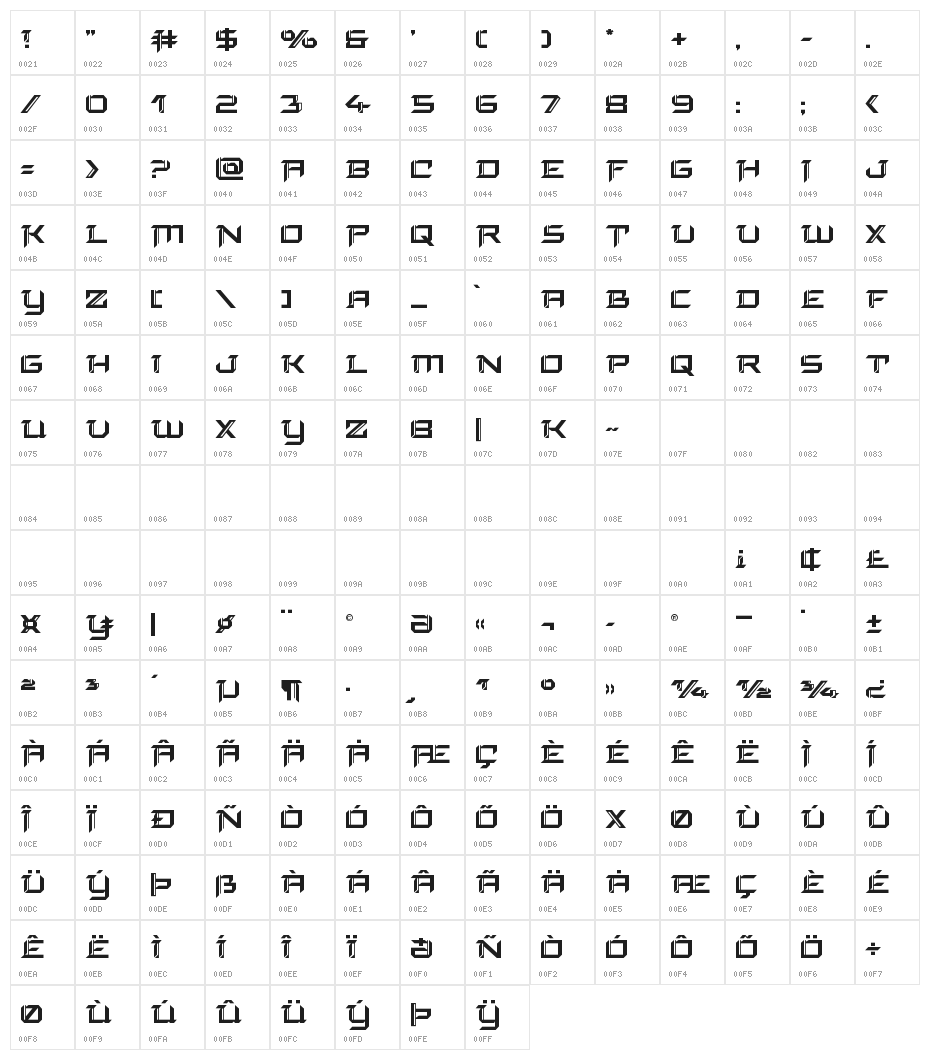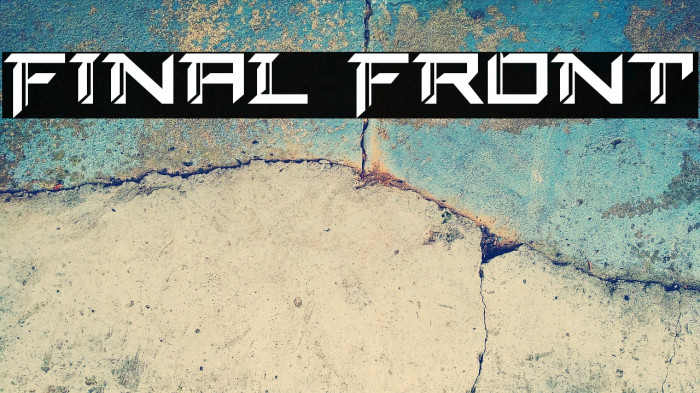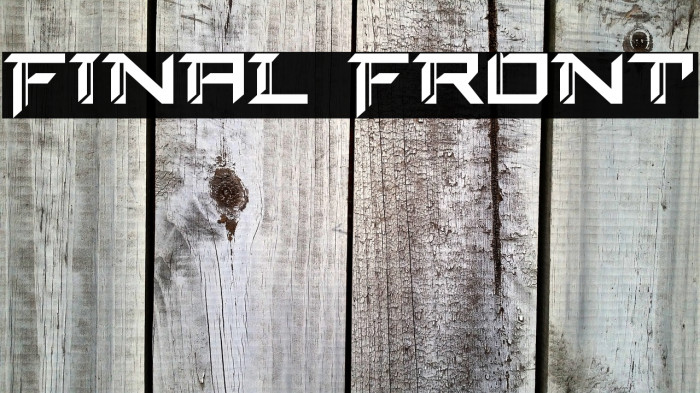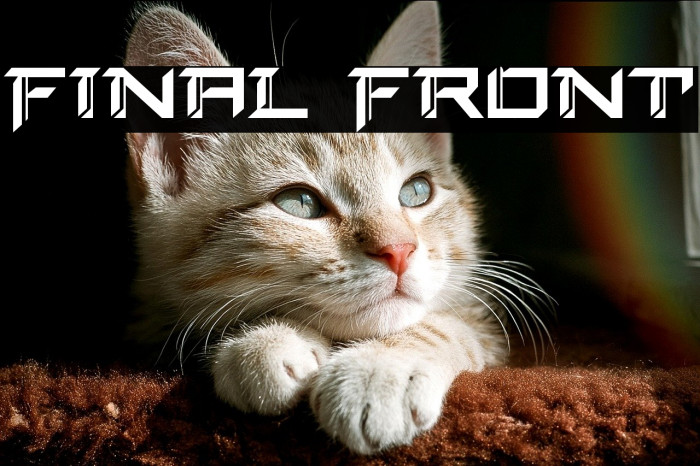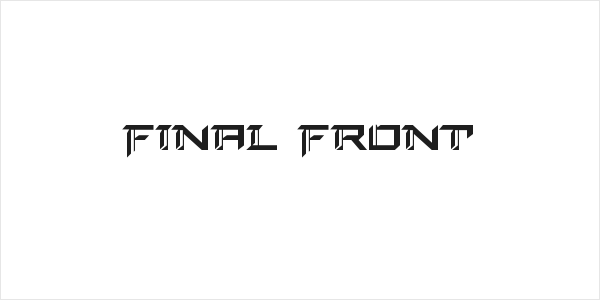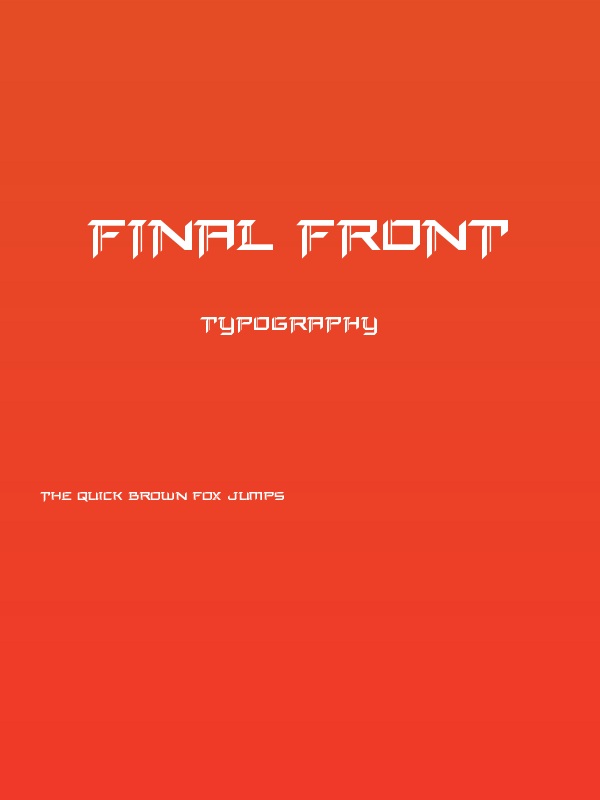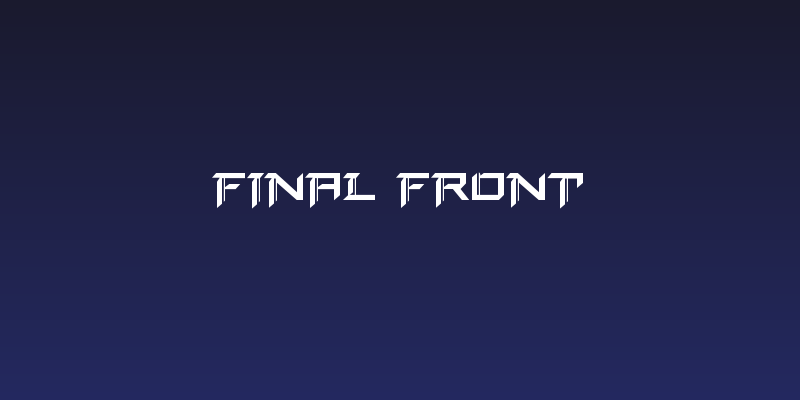
Final Front Font
Final Front Description
This font exhibits a bold, futuristic design with sharp angles and geometric shapes. The characters are constructed with a combination of thick and thin lines, creating a dynamic and edgy appearance. The uppercase and lowercase letters maintain a consistent style, emphasizing a modern, tech-inspired aesthetic. The numerals and special characters follow the same design principles, ensuring uniformity across the typeface. This font's unique style makes it stand out, ideal for projects that require a strong visual impact.
| Overall Style | Futuristic |
| Use Case | Logos, Headlines, Posters |
| Proposed Projects | Ideal for technology branding, sci-fi themed designs, video game titles, and modern posters. |